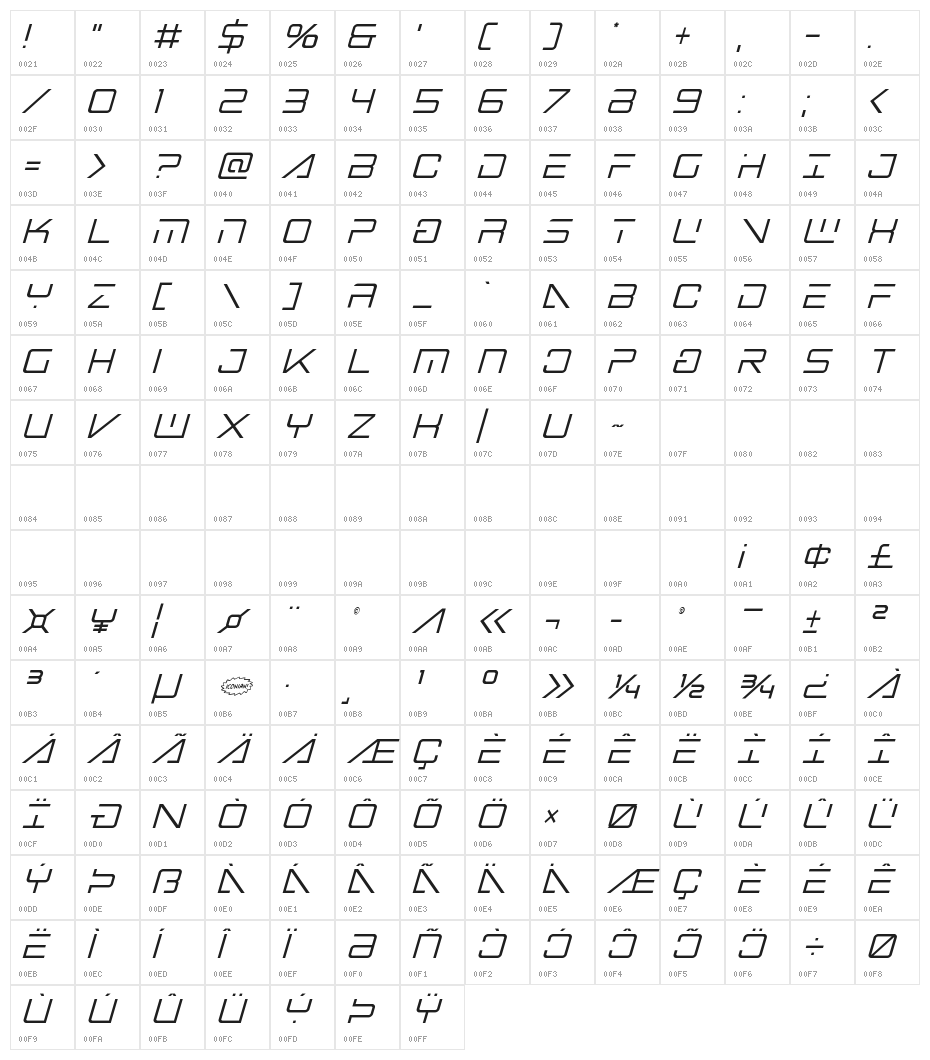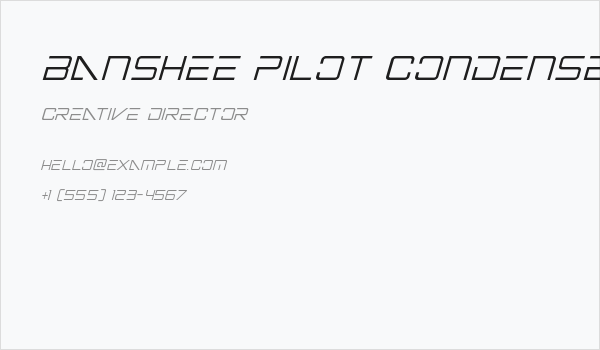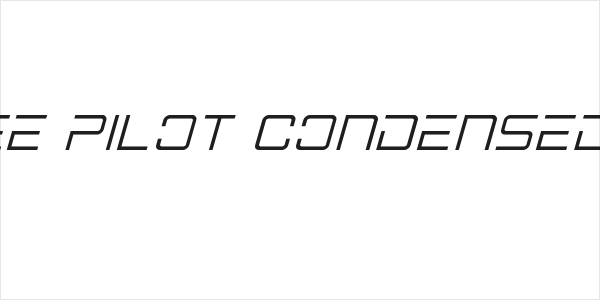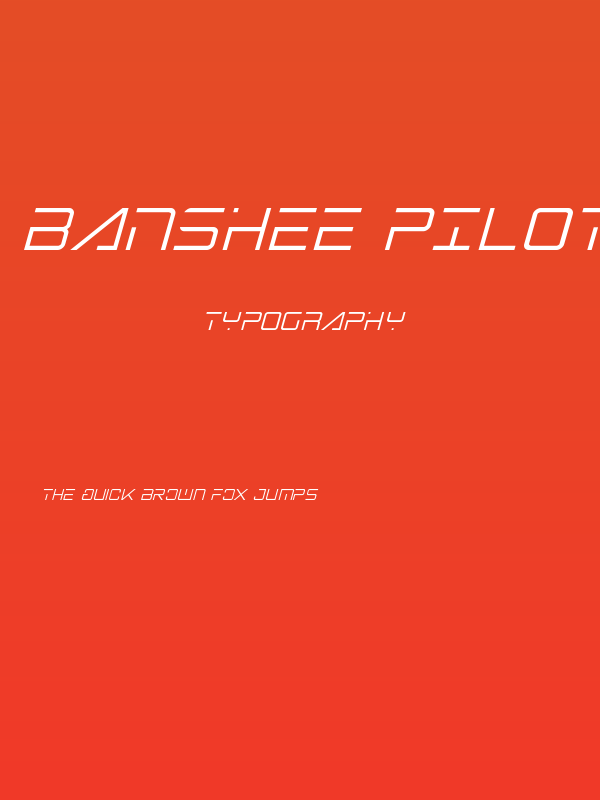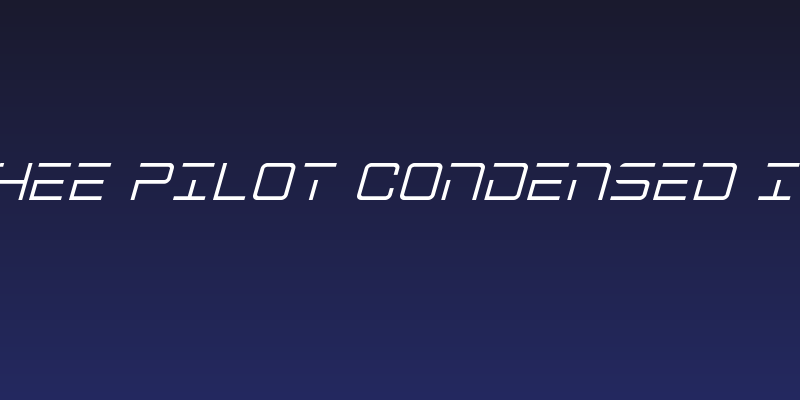
Banshee Pilot Condensed Italic Font
Banshee Pilot Condensed Italic Description
This font features a sleek, futuristic design with a condensed and italicized style. The characters are angular and streamlined, giving a sense of motion and speed. The uppercase and lowercase letters maintain a consistent geometric form, with sharp edges and a slightly slanted orientation. Numbers and special characters follow the same design principles, ensuring uniformity across all glyphs. The font's modern aesthetic makes it suitable for projects that require a contemporary and dynamic look.
| Proposed Projects | Ideal for sci-fi themed designs, technology branding, automotive advertisements, and video game interfaces. |